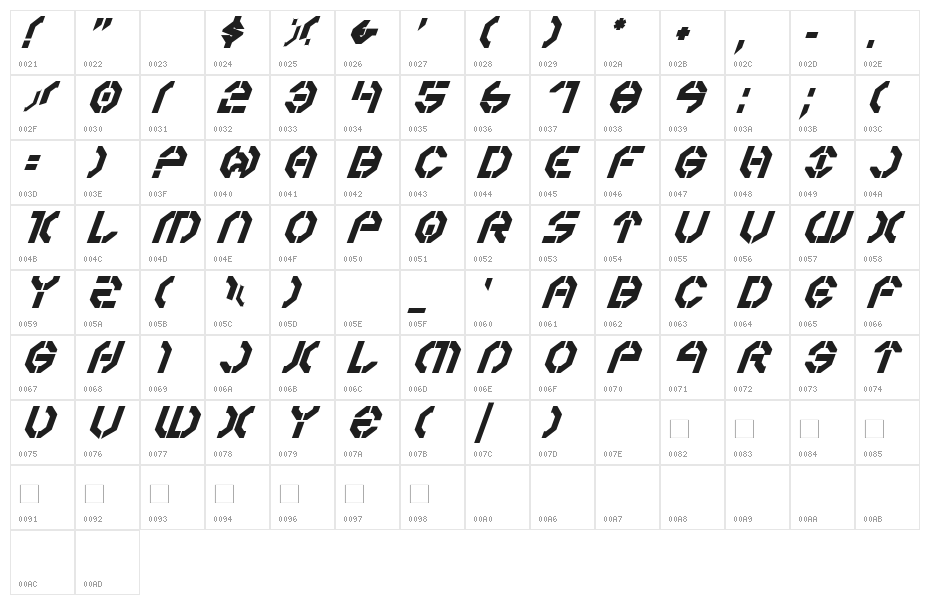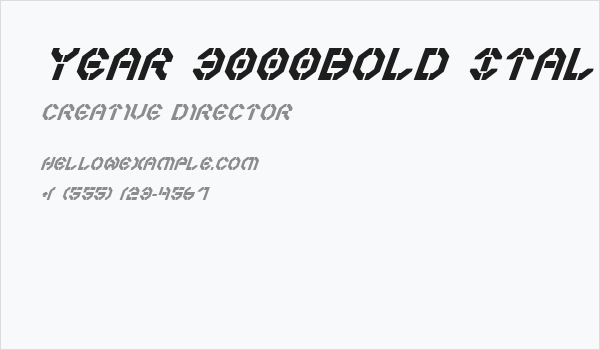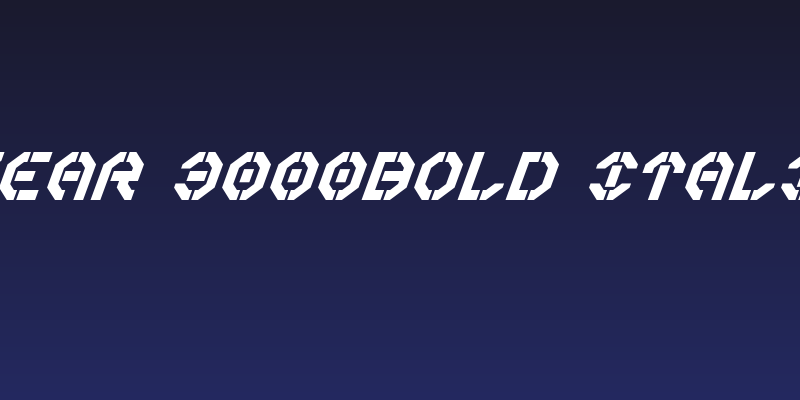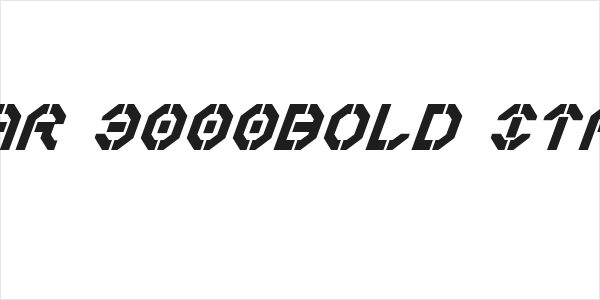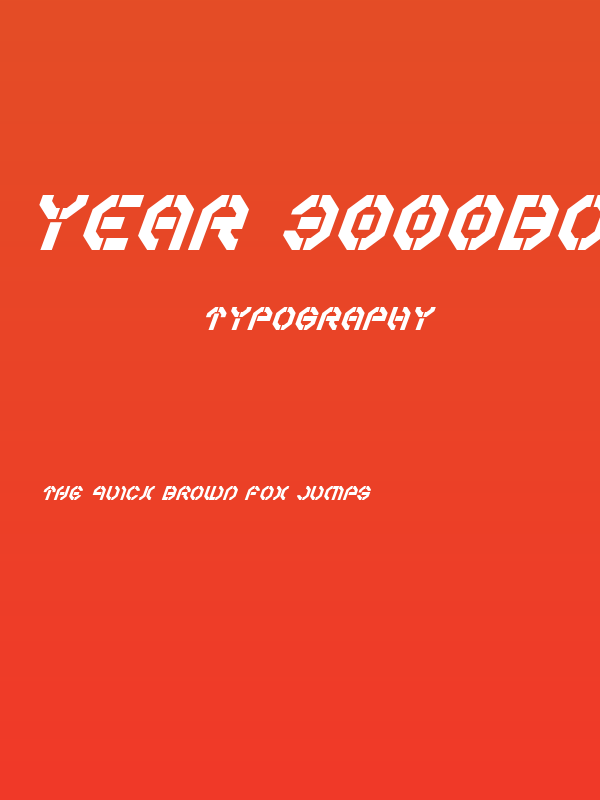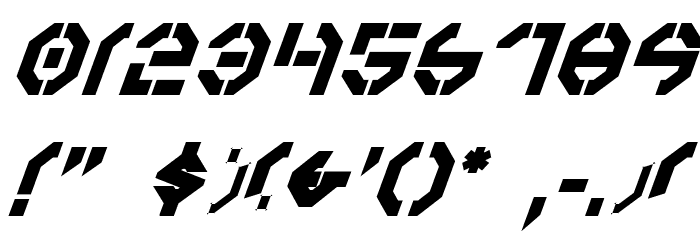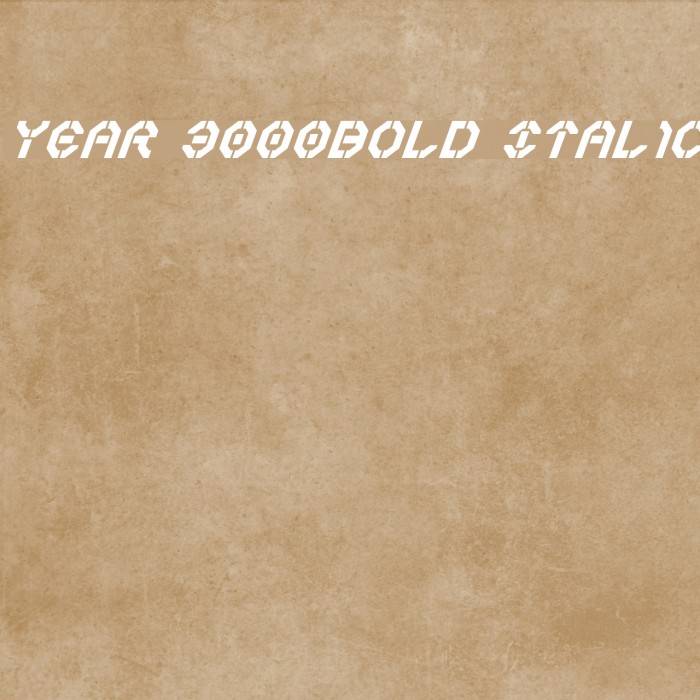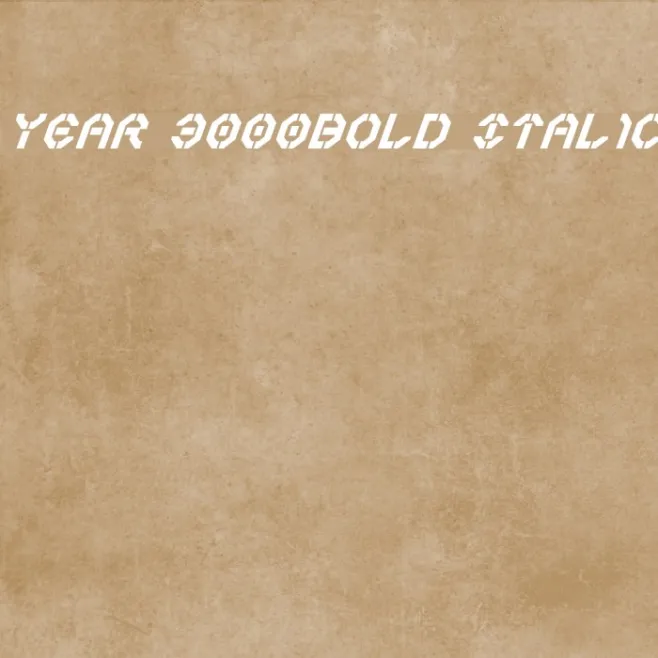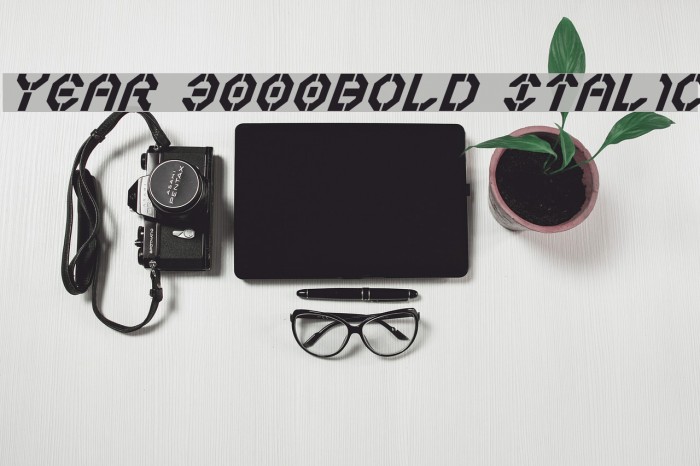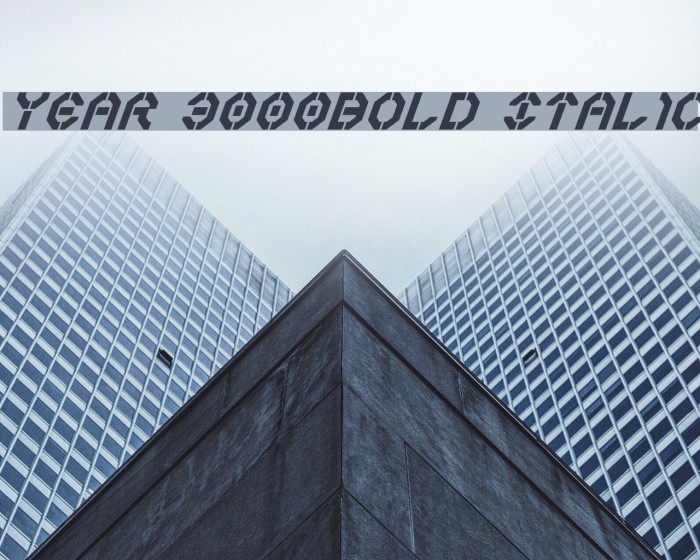
Year 3000Bold Italic Font
Year 3000Bold Italic Description
This futuristic font features a bold and italicized style with a distinctly angular and geometric design. The characters are constructed with sharp edges and diagonal cuts, giving them a dynamic and forward-looking appearance. The uppercase and lowercase letters maintain a consistent style, emphasizing a sense of movement and speed. The numerals and special characters are equally stylized, fitting seamlessly into the overall aesthetic. This font's unique design makes it stand out, ideal for projects that require a modern and edgy look.
| Proposed Projects | Ideal for sci-fi themed projects, technology branding, video game titles, and futuristic posters. |